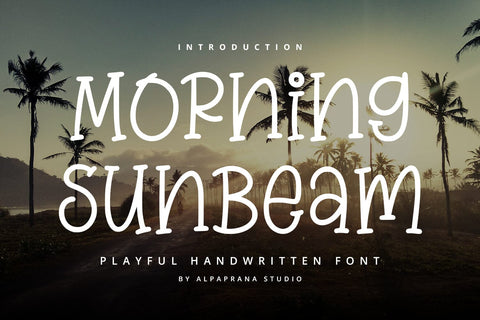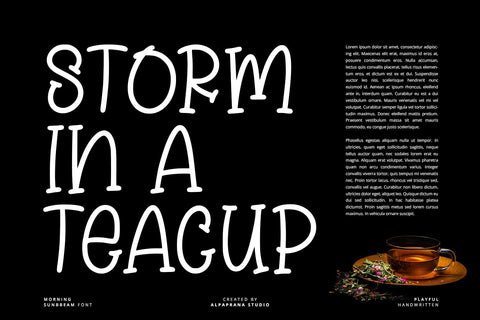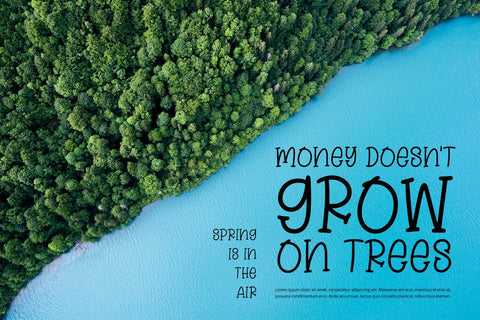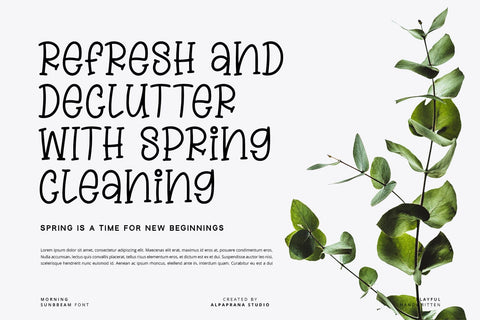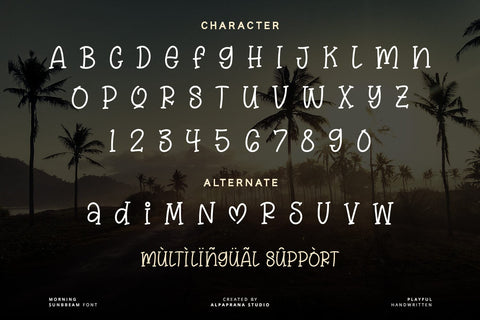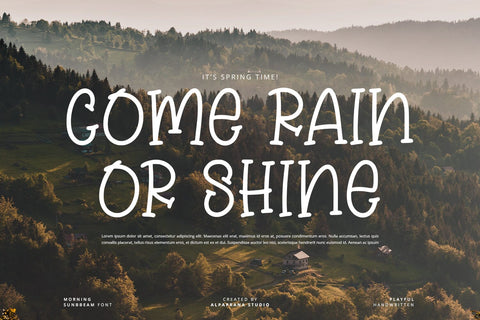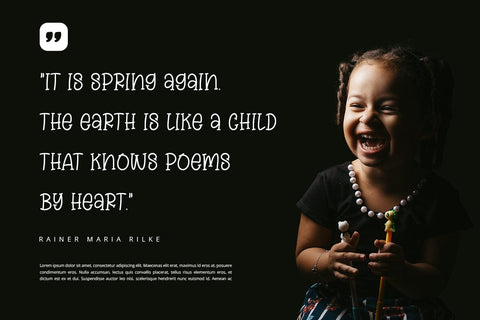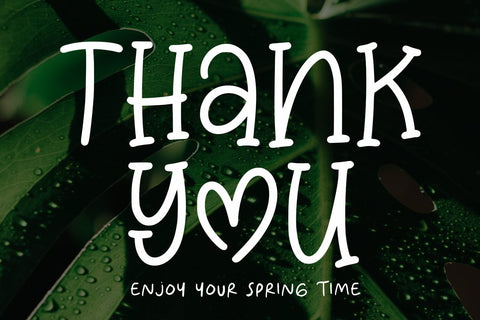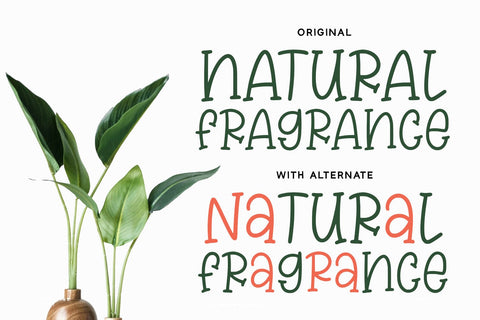
Morning Sunbeam - Handwritten Font
Morning Sunbeam is a handwritten font with authentic and modern feels. It will be perfectly used for Branding, Logo Design, Lettering, Logotype, Clothing, Poster, magazine, packaging, posters, shopping bags, t-shirts, book covers, photography, special events and other design project.